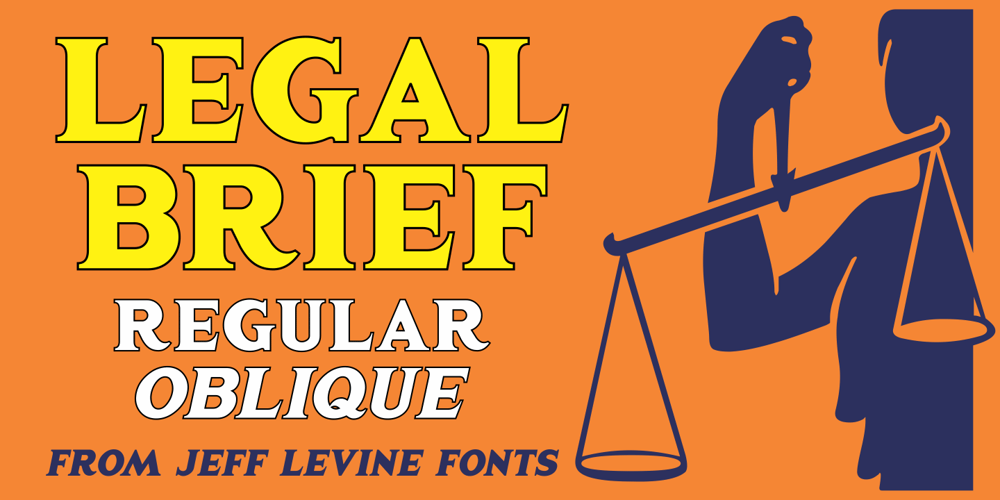
Legal Brief JNL
Legal Brief JNL font
Legal Brief JNL Font Family was designed by Jeff Levine and published by Jeff Levine. Legal Brief JNL contains 2 styles and family package options. The bold serif hand lettering found in the title and credits of the 1961 film “Judgement at Nuremberg” inspired Legal Brief JNL, which is available in both regular and oblique versions.